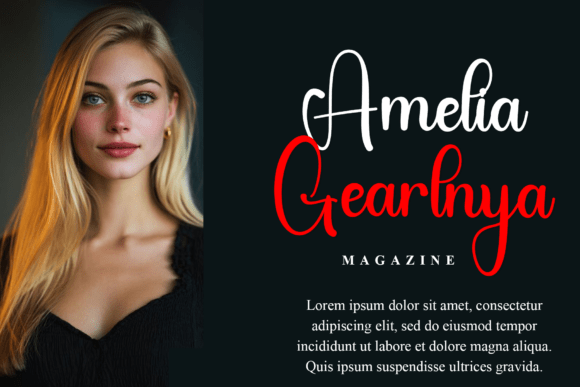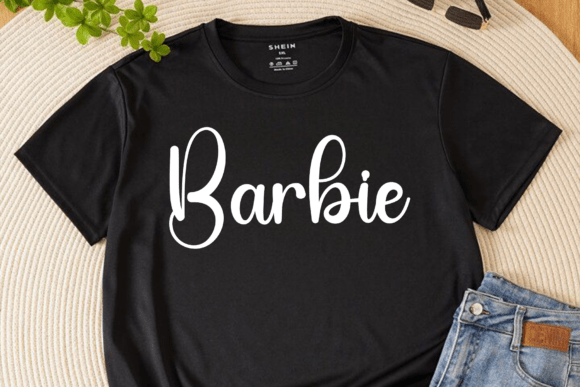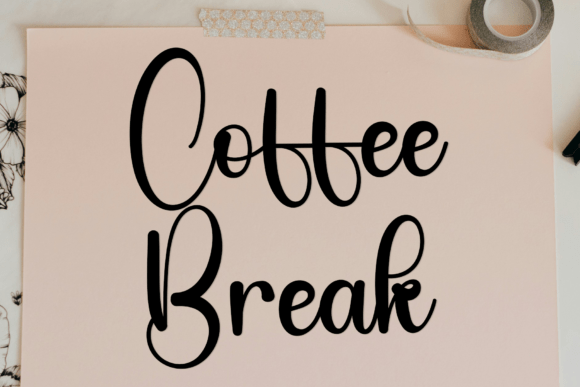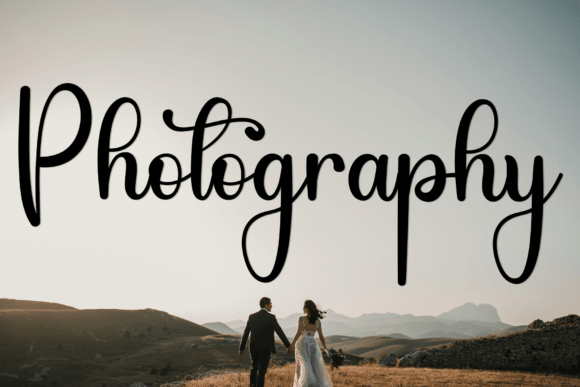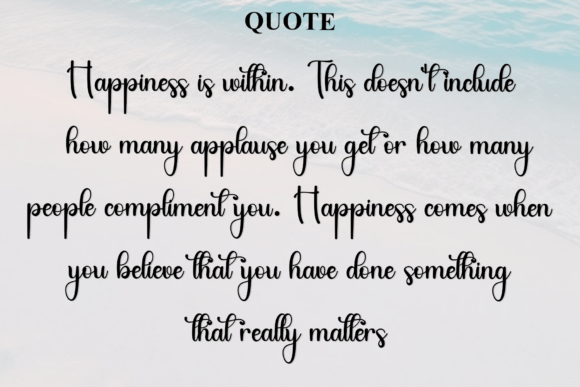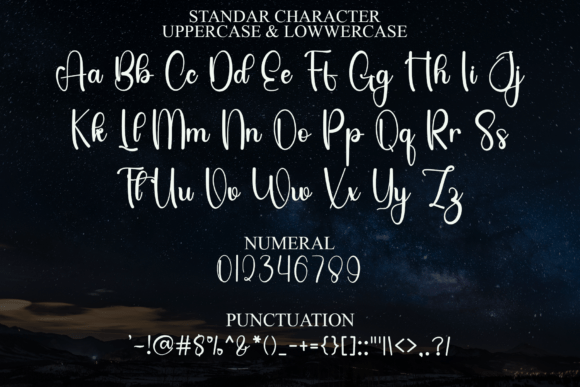
The Magic of Christian Creative Font: A Festive Design Essential
It’s the most wonderful time of the year — and I’m not just talking about the holiday season! As a designer, I’ve had my fair share of late nights searching for the perfect font to bring my projects to life. I recall working on a Christmas card design for a client, determined to create something that would make their loved ones feel special. But, I was stuck on one thing: finding a font that captured the festive spirit without being too cliché or over-the-top. That’s when I stumbled upon Christian Creative Font, and it was love at first sight! ✨
Christian Creative Font has been a game-changer for my holiday designs, and I’m excited to share my honest review with you. Here’s what I love:
- ✨ Festive and merry vibe that’s perfect for holiday projects
- ✅ Decorative elements and whimsical flair that add a touch of enchantment
- 🎉 PUA encoded, making it easy to access all the amazing glyphs and ligatures
- 📚 Works beautifully for greeting cards, gift tags, and other holiday-themed projects
Now, I do have to mention a few small quirks:
- 🤔 Some of the glyphs can be a bit finicky to access, but the PUA encoding makes it easier
- ⚠️ Not ideal for body text or long-form content, as it’s best suited for display and headings
The Story Behind Christian Creative Font
Christian Creative Font was designed with the holiday season in mind. The creator wanted to craft a font that would capture the magic and wonder of this special time of year. With its decorative elements and whimsical flair, Christian Creative Font is the perfect addition to any holiday design project. Whether you’re a designer, crafter, or creative hobbyist, this font is sure to bring a smile to your face and a touch of enchantment to your work.
| What is Christian Creative Font? | Christian Creative Font is a festive and merry typeface designed specifically for holiday-themed projects. |
| Is Christian Creative Font PUA encoded? | Yes, Christian Creative Font is PUA encoded, making it easy to access all the amazing glyphs and ligatures. |